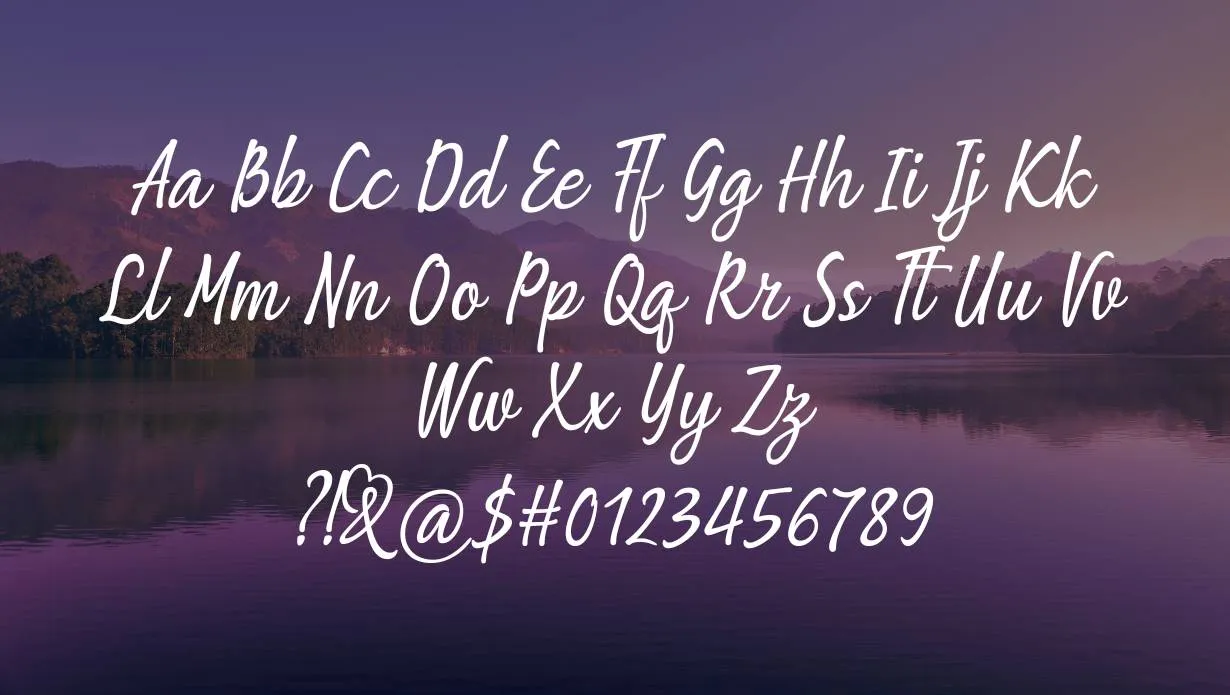
Being Love Duo Font feels elegant and romantic. Its graceful and intertwined letters bring a sense of love and beauty to any text. This font often comes in TTF and OTF file formats, ensuring compatibility across different design programs.
Pairing this typeface with the true crimes font opens up opportunities to craft exceptional displays. It’s frequently seen in wedding invitations or heartfelt messages, evoking a feeling of tenderness and affection. Its lovely appearance adds a touch of sweetness, making the text look affectionate and charming.